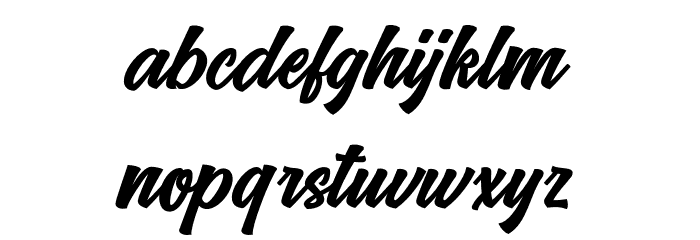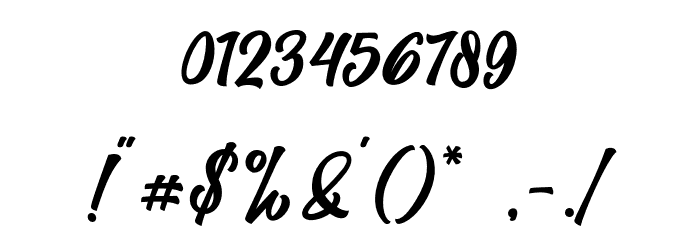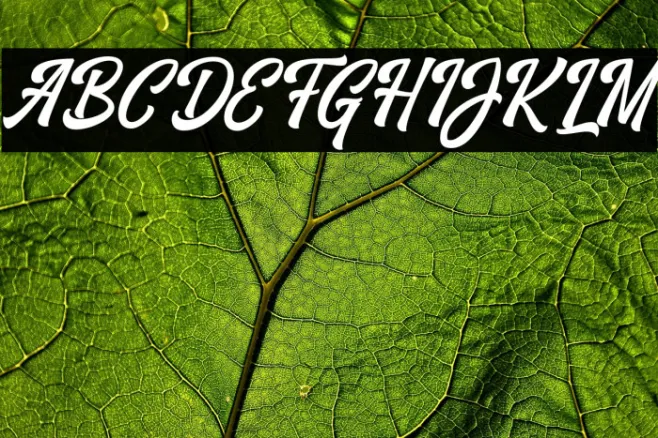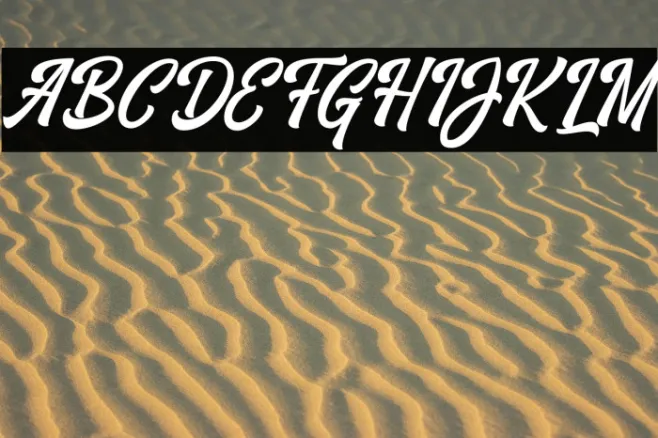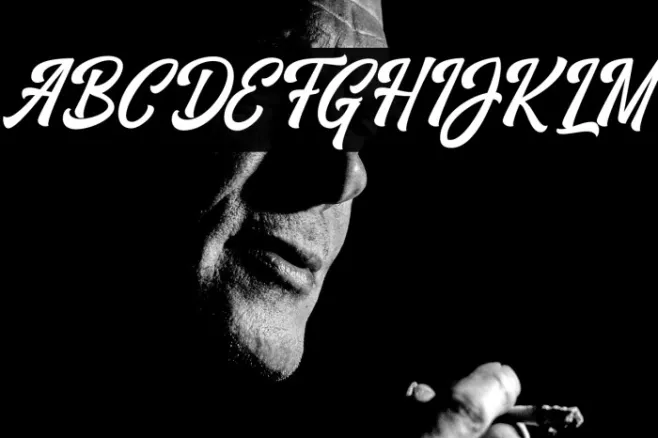
VrindalsScriptDafont Font
This font features a dynamic and flowing script style, characterized by its elegant and cursive letterforms. The uppercase letters are bold and slightly slanted, giving a sense of movement and grace. The lowercase letters maintain a consistent flow, with smooth connections between each character, enhancing the script's fluidity. Numbers and special characters are designed to match the overall aesthetic, ensuring a cohesive look. The font's style is reminiscent of traditional calligraphy, yet it maintains a modern touch that makes it versatile for various design applications.
A dynamic and flowing script font with elegant, cursive letterforms.
- Font: VrindalsScriptDafont
- Proposed Projects: Ideal for wedding invitations, greeting cards, branding, and logo design.
- Category: Script
- Use Case: Logos, Headlines, Invitations